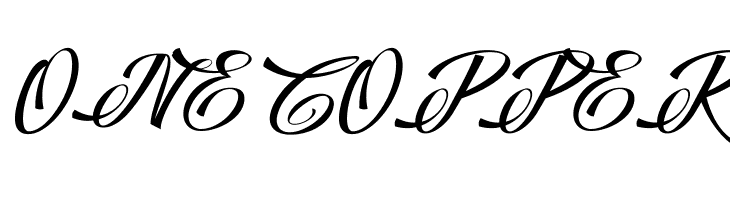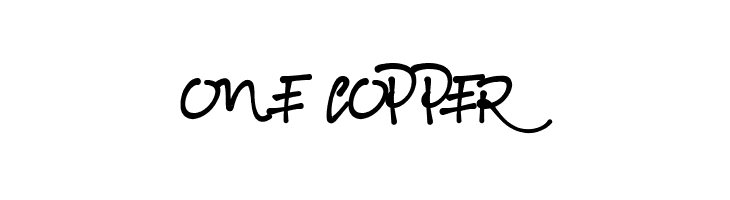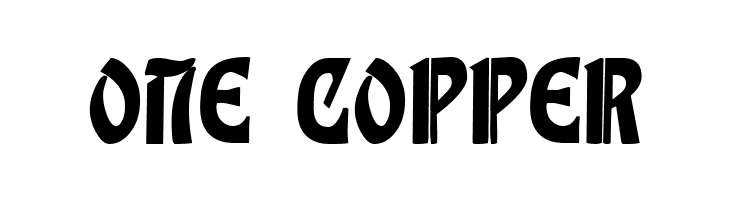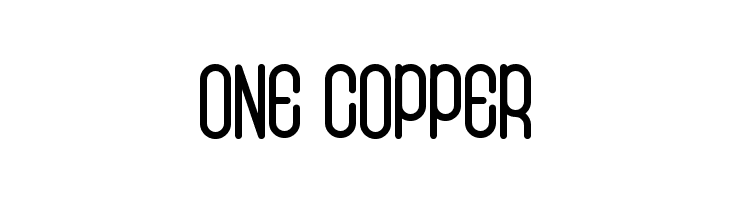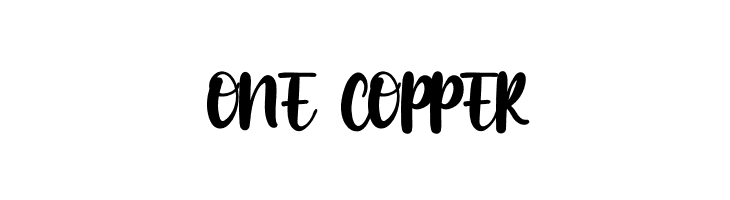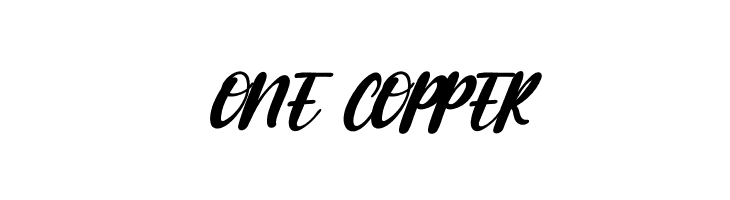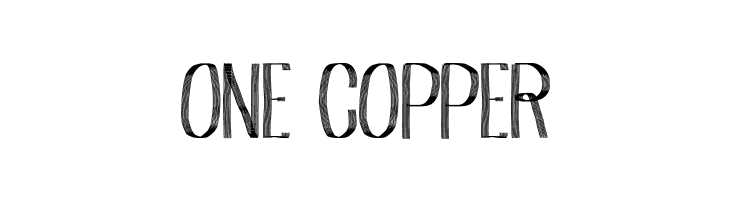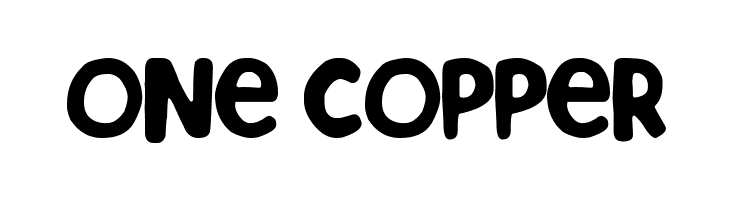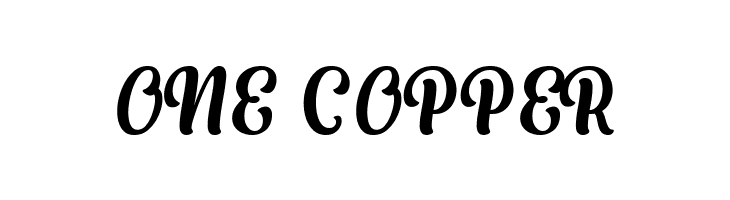
A playful and elegant script font with flowing, cursive letterforms.
An elegant script font with flowing, cursive letterforms and high contrast strokes.
A bold, playful font with rounded edges and a bubbly appearance.
A playful and elegant script font with flowing, cursive letters.
An elegant and decorative font with intricate swirls and flourishes.
An ornate, floral-decorated font ideal for elegant and artistic projects.
A dynamic and expressive handwritten font with fluid, cursive letterforms.
A dynamic handwritten font with expressive and fluid strokes.
A lively, cursive handwritten font with expressive strokes.
A hand-drawn, textured font with a modern, decorative style.
A bold, geometric font with high contrast and a modern, edgy style.
A modern, sans-serif font with tall, narrow characters and consistent stroke width.
A graceful script font with flowing, connected strokes and a handwritten style.
A flowing, cursive script font with elegant, interconnected characters.
A rounded, modern typeface with clean lines and a friendly appearance.
A modern serif font with elegant lines and balanced proportions.
A bold, dramatic font with vintage and gothic influences, featuring thick strokes and sharp angles.
A bold, cursive font with a playful, handwritten style.
A bold, italic script font with dynamic, flowing letterforms.
A whimsical, handwritten font with tall, narrow letterforms and playful curves.
A bold, expressive script font with smooth, flowing characters.
A playful, flowing script font with elegant curves and connected strokes.
A modern, geometric font with clean, rounded edges and consistent stroke width.
A modern, geometric font with rounded forms and consistent stroke width.
A bold, italic font with smooth curves and a modern, dynamic style.
A modern, italic font with smooth curves and consistent stroke width.
A modern, hollow font with a geometric and futuristic style.
A modern, hollow, and geometric font with a futuristic style.
A modern, geometric font with fluid lines and rounded edges.
A vintage typewriter-style font with a distressed, textured appearance.
A vintage, typewriter-style font with a distressed, monospaced appearance.
A bold, expressive script font with elegant, flowing curves.
A bold, elegant script font with fluid, connected characters and subtle flourishes.
An elegant, flowing script font with intricate loops and swirls.
A bold, flowing script font with elegant curves and artistic flourishes.